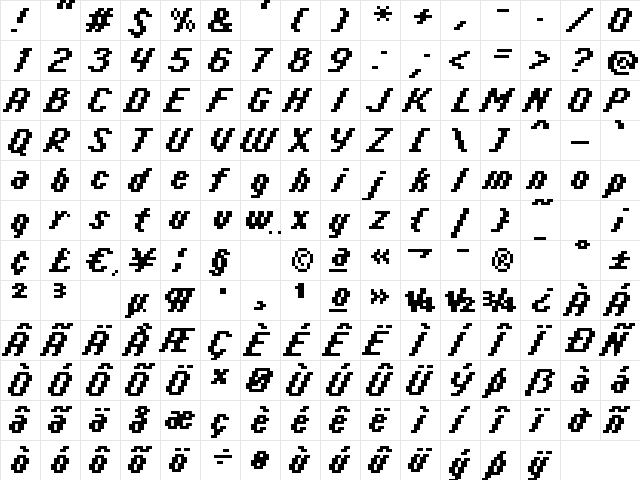
italic 08_65 Regular Font Preview
italic 08_65 Regular
italic 08_65 Regular Font Details
Design Context for italic 08_65 Typeface
italic 08_65 is a composed and adaptable typeface that performs quietly and consistently across a wide range of design contexts. The slanted form adds forward momentum and visual energy.
Pro Tip: Use italic 08_65 for emphasis, pull quotes, and subheadings where its slanted energy can add rhythm to the layout.